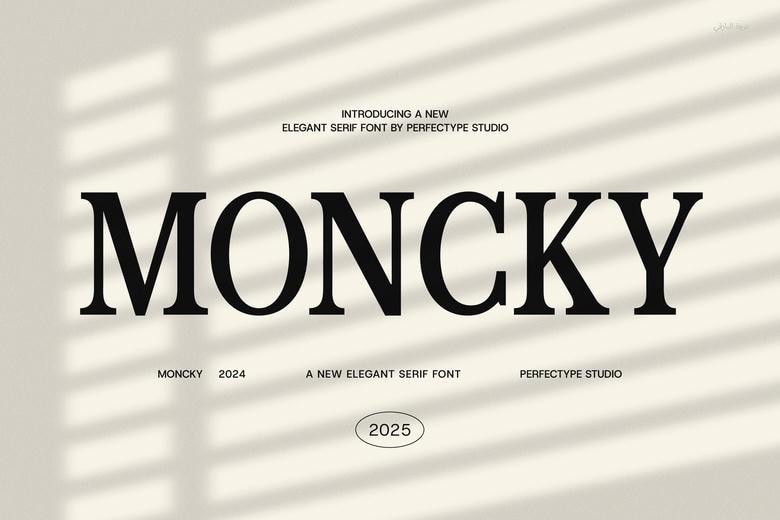
Moncky Font
Moncky is the powerful and stylish serif font made to add elegance and sophistication to the design. When you combine Moncky with its clean line forms, well balanced proportions and elegant character shapes, you have a blend of classic beauty that speaks in a new contemporary style. It is a font that is intended to be spectacular- be it a print or a digital design.
Moncky Serif Font